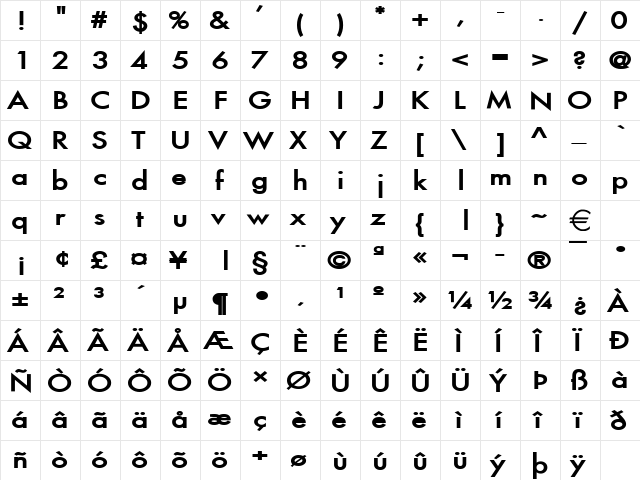
FusiWide Bold Font Preview
FusiWide Bold
FusiWide Bold Font Details
Design Context for FusiWide Typeface
FusiWide takes a measured approach to typography — its balanced proportions and neutral character make it a reliable workhorse for both digital and print work. The heavy weight commands attention and anchors typographic hierarchies.